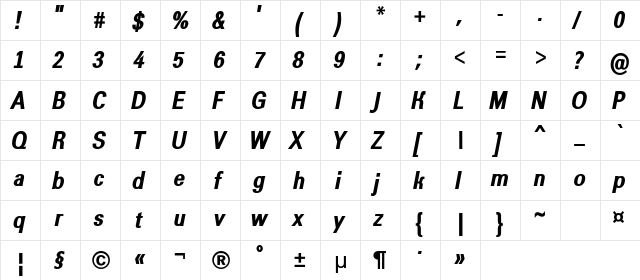
a_GroticNrExtraBold Italic
Design Context for a_GroticNrExtraBold Typeface
a_GroticNrExtraBold offers clean, dependable letterforms without strong stylistic allegiance, making it a practical choice for designers who need flexibility. The dynamic lean of this cut emphasises speed and emphasis in any layout. The heavy weight commands attention and anchors typographic hierarchies.
Pro Tip: Try a_GroticNrExtraBold for annotation and caption copy alongside an upright companion — the contrast in angle creates a dynamic but ordered typographic system.